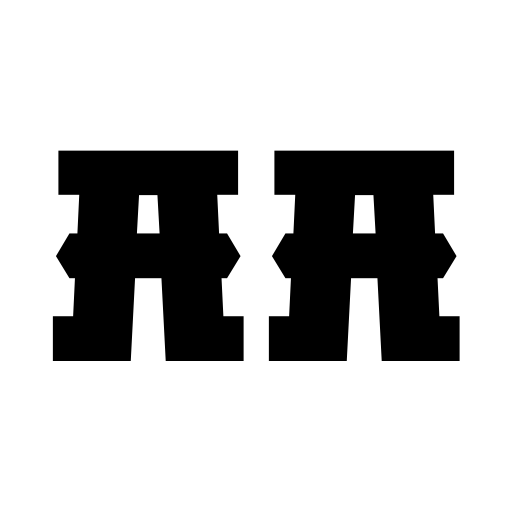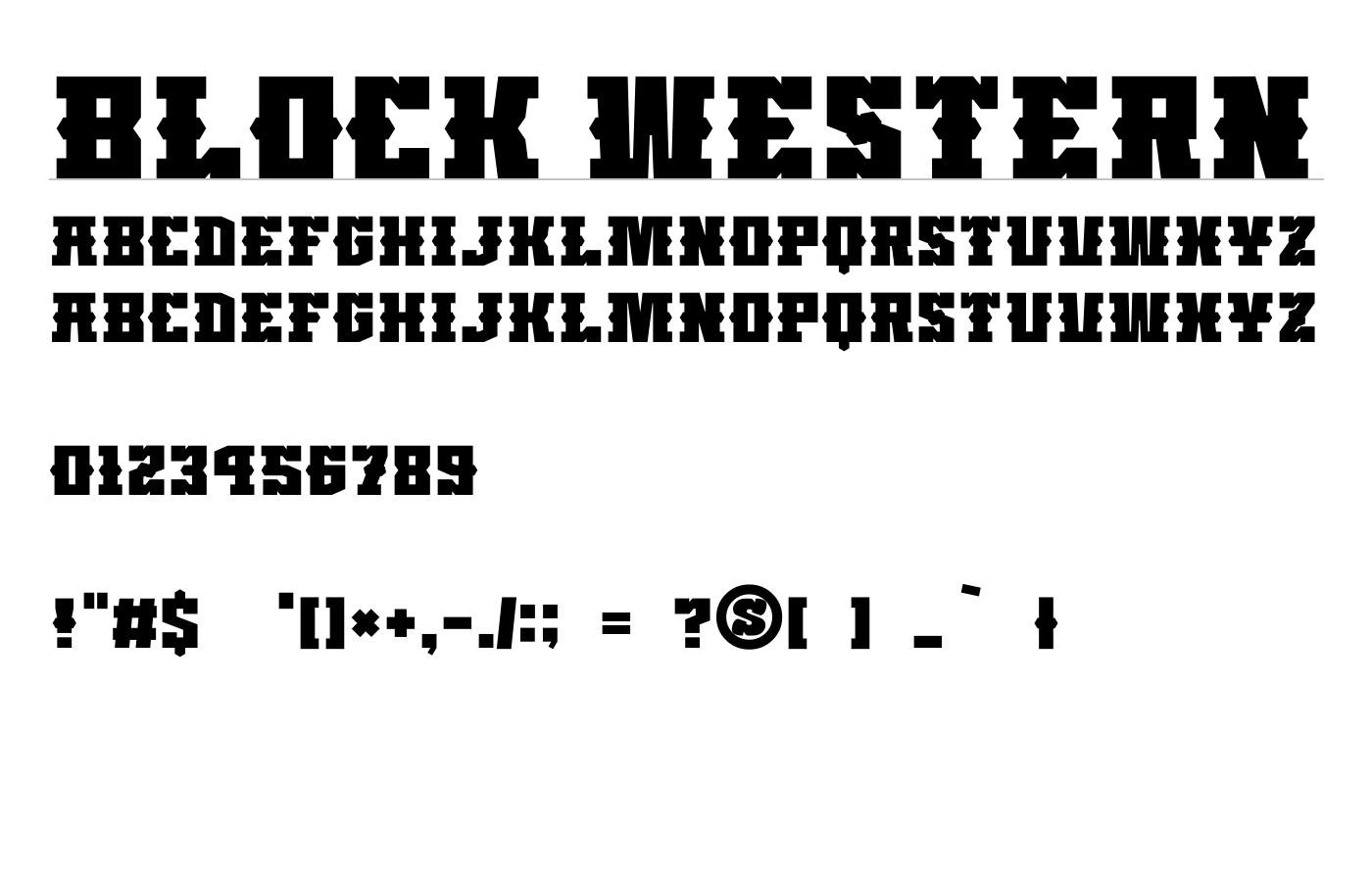
Block Western Font is a bold, heavy slab serif typeface with a strong, rugged feel reminiscent of classic Wild West designs. Its condensed, blocky letterforms feature thick, angular serifs and consistent stroke weight, making it ideal for creating impactful headlines, logos, and signage with a vintage, adventurous character. This font works best in contexts where a bold, sturdy, and distinctive western or rustic atmosphere is desired.
Block Western Font
About Block Western Font